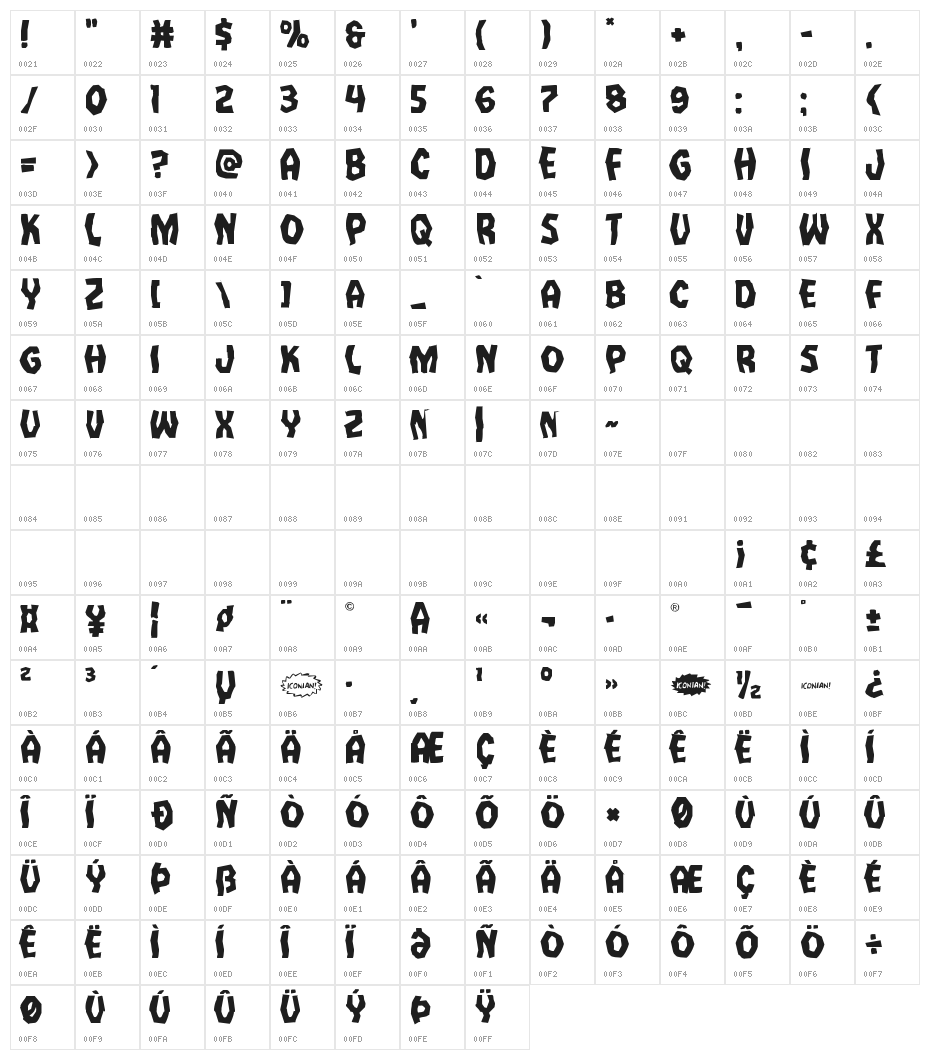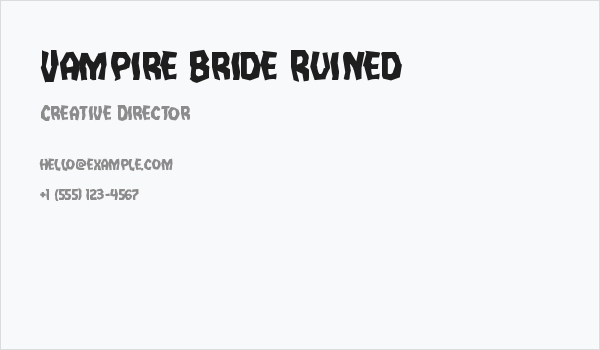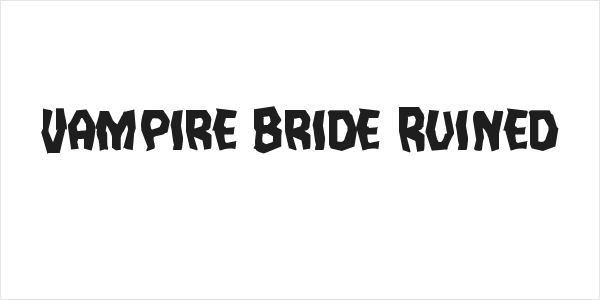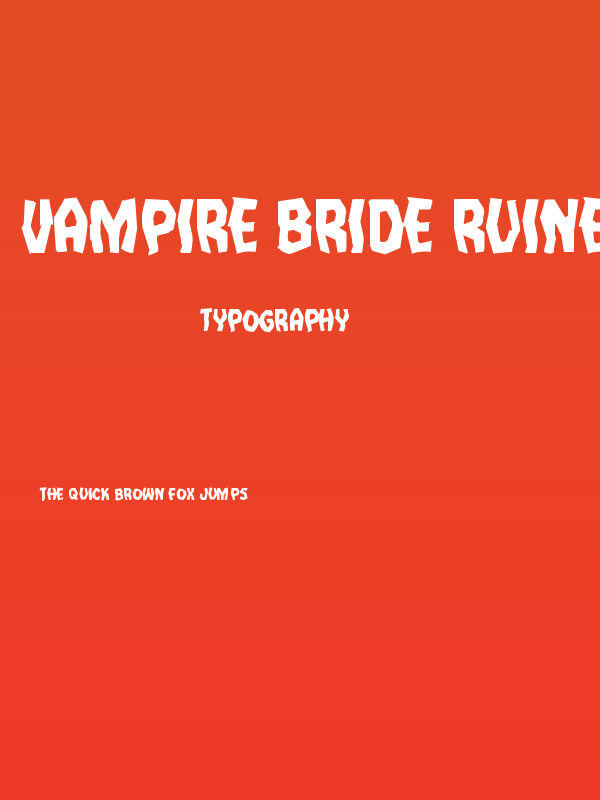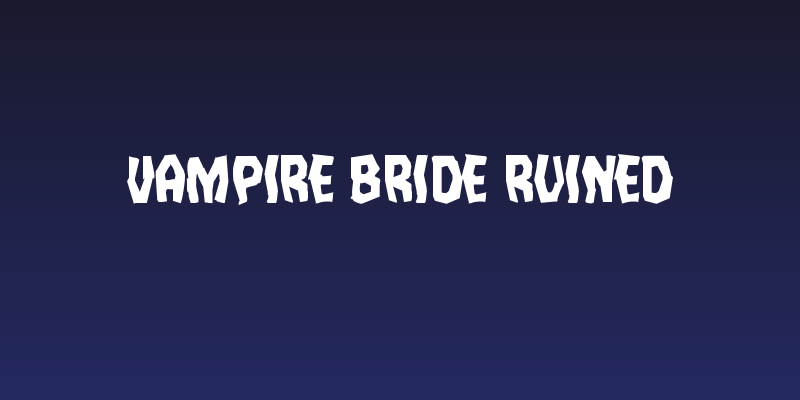
Vampire Bride Ruined Font
Vampire Bride Ruined Description
This font features a bold and jagged design, reminiscent of horror or gothic themes. The characters have an uneven, hand-drawn appearance, with sharp angles and irregular edges that create a sense of chaos and intensity. The uppercase letters are particularly striking, with exaggerated forms that demand attention. The numbers and special characters maintain this rugged style, ensuring consistency across all elements. This font is ideal for projects that require a dramatic and edgy look, such as Halloween-themed designs, horror movie posters, or any creative work that seeks to evoke a sense of mystery and darkness.
| Proposed Projects | Perfect for Halloween designs, horror movie posters, and edgy graphic projects. |